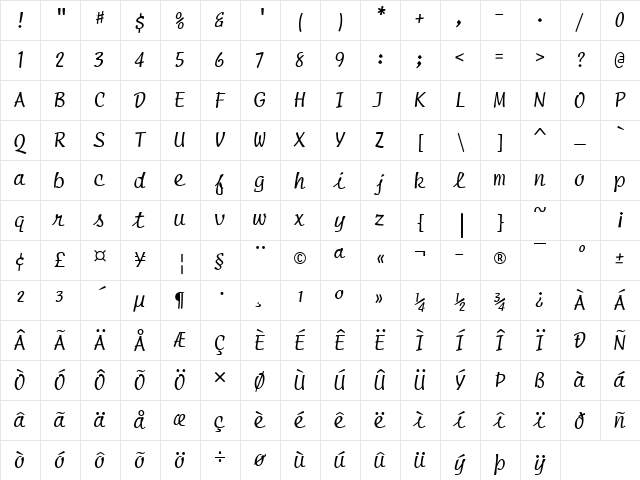
Script Regular
Complete Script Regular glyph index. Displaying only characters natively supported by Script Regular font.
Design Context for Script
Script flows with the natural rhythm of handwritten lettering, making it ideal for designs that call for warmth and personal expression.
Font Pairing: Combine Script with a simple geometric sans for maximum contrast - the tension between flowing curves and clean structure is a classic typographic pairing.
Pro Tip: Use Script for short runs of text - names, titles, or taglines. Extended body copy in script faces tires the eye quickly.